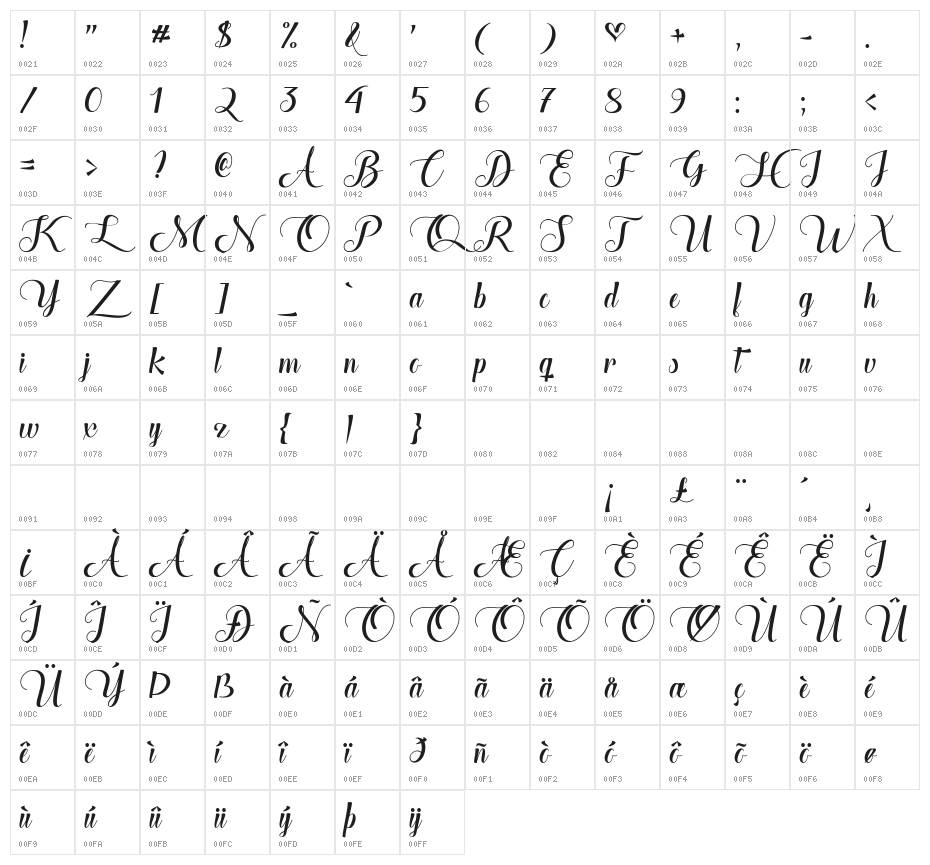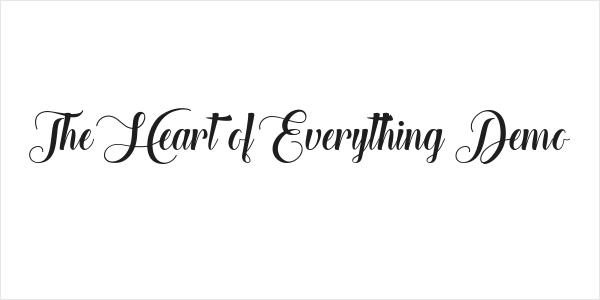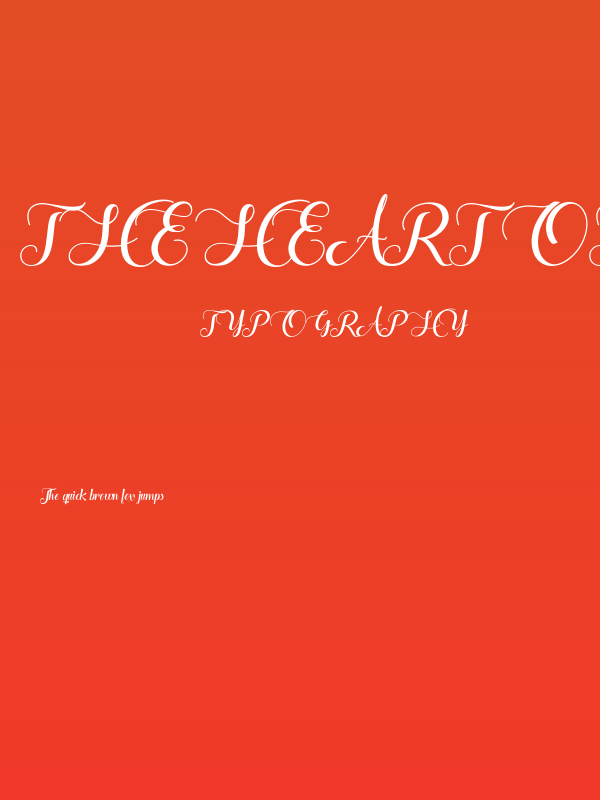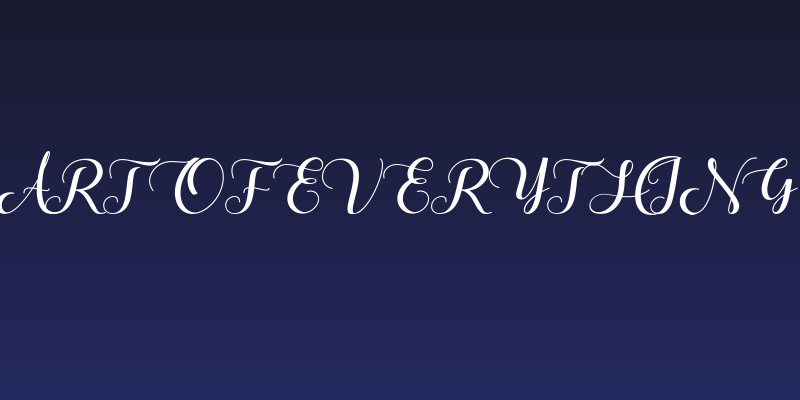
The Heart of Everything Demo Font
The Heart of Everything Demo Description
This elegant script font features a flowing, cursive style with intricate loops and swashes that give it a sophisticated and artistic appearance. The uppercase letters are particularly ornate, with each character exhibiting unique flourishes that enhance its decorative quality. The lowercase letters maintain a consistent style, offering a harmonious blend of readability and aesthetic appeal. The numerals are bold and slightly italicized, complementing the overall design. Special characters are creatively integrated, adding to the font's versatility. This font is ideal for projects that require a touch of elegance and creativity.